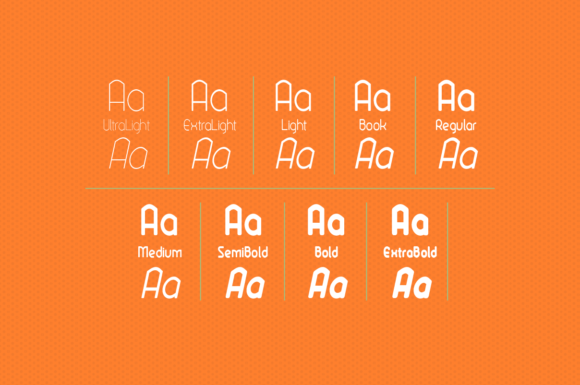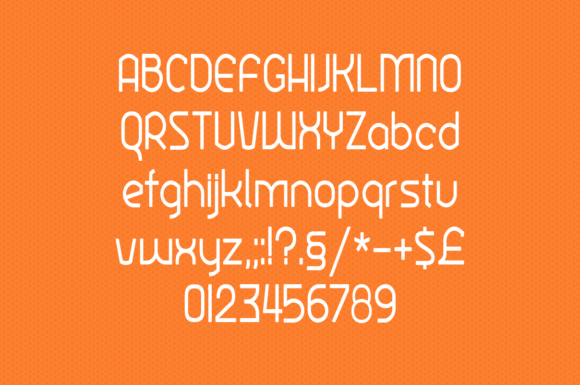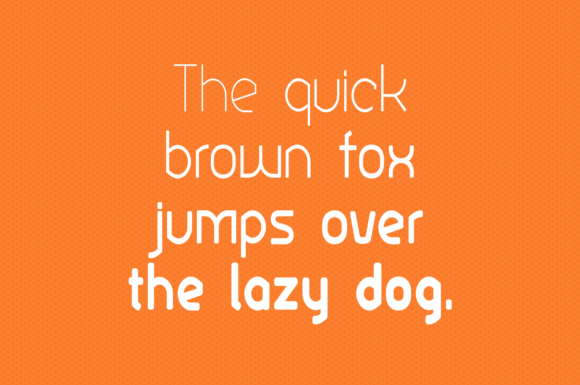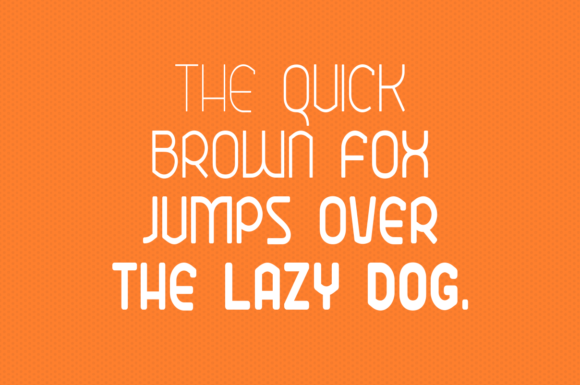
Introducing Ekela Font: The Ultimate Sans Serif for Creative Projects
Are you tired of using the same old fonts for your design projects? Look no further! Ekela Font is here to revolutionize your creative endeavors with its minimal and neat sans serif style. This versatile font is perfect for a wide range of projects, and we’re excited to dive into its features and benefits.
What is Ekela Font?
Ekela Font is a modern sans serif font designed to help you create stunning visual content. Its clean and minimalist aesthetic makes it an excellent choice for designers, crafters, and anyone looking to add a touch of sophistication to their projects. Whether you’re working on a logo, brochure, website, or social media graphics, Ekela Font is sure to make your designs stand out.
Key Features of Ekela Font
- Minimal and Neat Design: Ekela Font boasts a sleek and contemporary design that’s perfect for modern projects.
- Sans Serif Style: The font’s sans serif style ensures that your text remains clear and legible, even at small sizes.
- Highly Versatile: Ekela Font can be used for a wide range of projects, from print materials to digital content.
- Easily Readable: The font’s clean lines and simple design make it easy to read, even for extended periods.
Benefits of Using Ekela Font
So, why choose Ekela Font for your projects? Here are just a few benefits you can expect:
- Enhanced Readability: Ekela Font’s clear and concise design ensures that your message gets across quickly and efficiently.
- Professional Look and Feel: The font’s modern aesthetic gives your projects a professional and polished look that’s sure to impress.
- Flexibility: Ekela Font can be used for a wide range of projects, from headings and titles to body text and more.
- Unique and Creative: With Ekela Font, you can add a touch of personality to your designs and make them stand out from the crowd.
Who Can Benefit from Ekela Font?
Ekela Font is perfect for a variety of designers, crafters, and professionals, including:
- Graphic Designers: Add a touch of sophistication to your brochures, flyers, and other print materials.
- Web Designers: Use Ekela Font to create stunning website headers, titles, and body text.
- Social Media Managers: Elevate your social media graphics and posts with Ekela Font’s modern aesthetic.
- Crafters and Makers: Use Ekela Font to add a professional touch to your craft labels, packaging, and marketing materials.
Ekela Font is a versatile and modern sans serif font that’s perfect for a wide range of creative projects. With its minimal and neat design, highly readable style, and professional look and feel, it’s an excellent choice for designers, crafters, and professionals. Download Ekela Font today and take your designs to the next level!